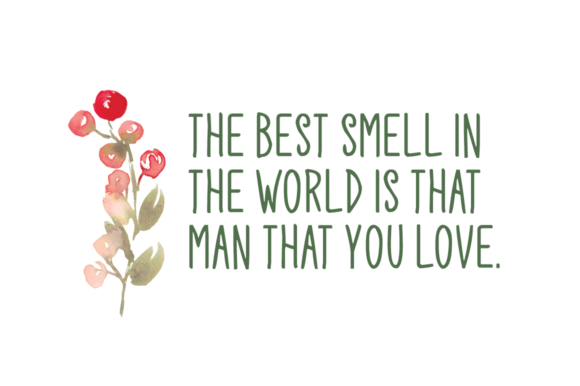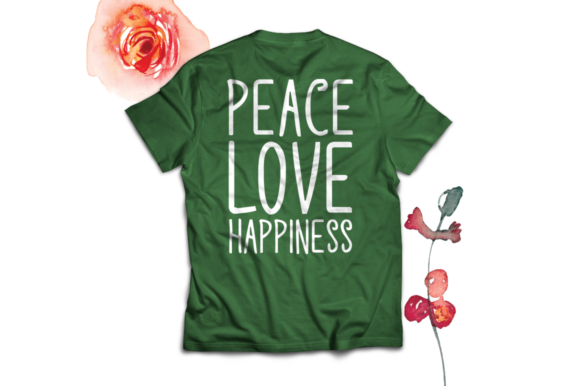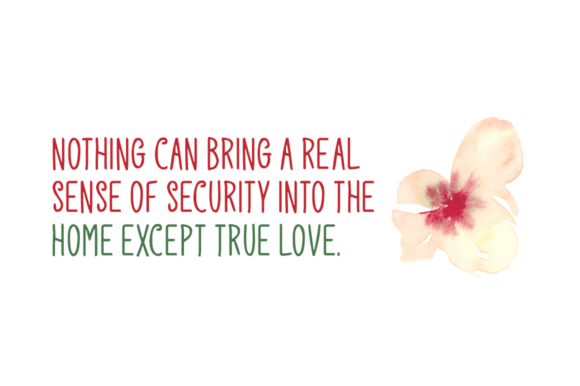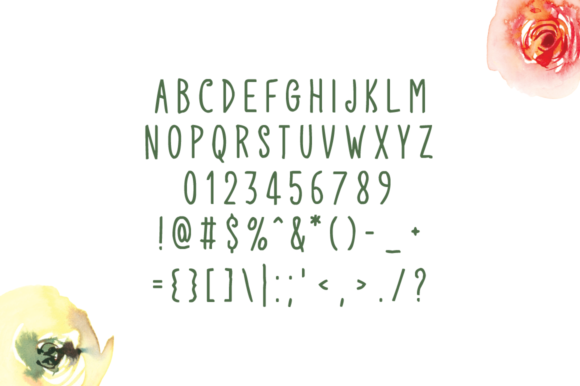
HomeScript FontsInside Lover Font Script Fonts Inside Lover Font FacebookXPinterestWhatsApp Inside Lover Font Poster 2 Inside Lover Font Poster 3 Inside Lover Font Poster 4 Inside Lover Font Poster 5 About Inside Lover Font Inside Lover is a handwritten font perfectly suited for stationery, logos, t-shirts and many more! DOWNLOAD NOW People also explored Birthday Font Jerastil Font Romantic Font Jungle Font Agidãs Font Blended Font Tamarillo Kiara Fashion Font Barnett Font 324 0 TagsInside Lover Font Previous articleBlack Fearnest FontNext articleRafella Font LEAVE A REPLY Cancel reply Comment: Please enter your comment! Name:* Please enter your name here Email:* You have entered an incorrect email address! Please enter your email address here Website: Save my name, email, and website in this browser for the next time I comment. Personal Use Free Silver Bullet Personal Use Free Read more about this font Soria Personal Use Free Read more about this font Eloquence Personal Use Free Read more about this font Helsinki Personal Use Free Read more about this font BLOG Using Fonts in Digital Marketing: Tips to Strengthen Your Brand Identity In the realm of digital marketing, every visual element plays a crucial role in shaping a brand's identity, and fonts are no exception. The... Best Fonts for T-Shirt Design – Top 2025 Picks Transform Your Website: Elevate Your Typography with 7 Best Web Font Generators How to Install and Use Fonts on Windows, macOS, and Web Projects